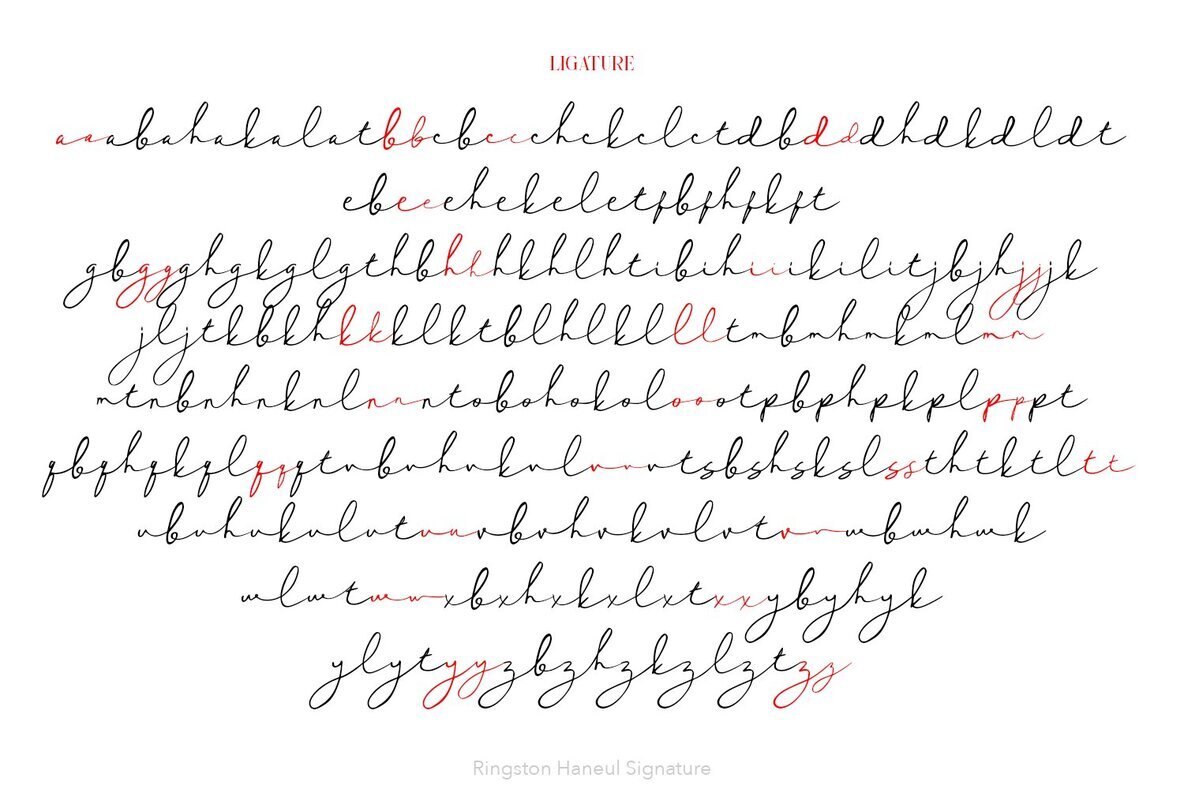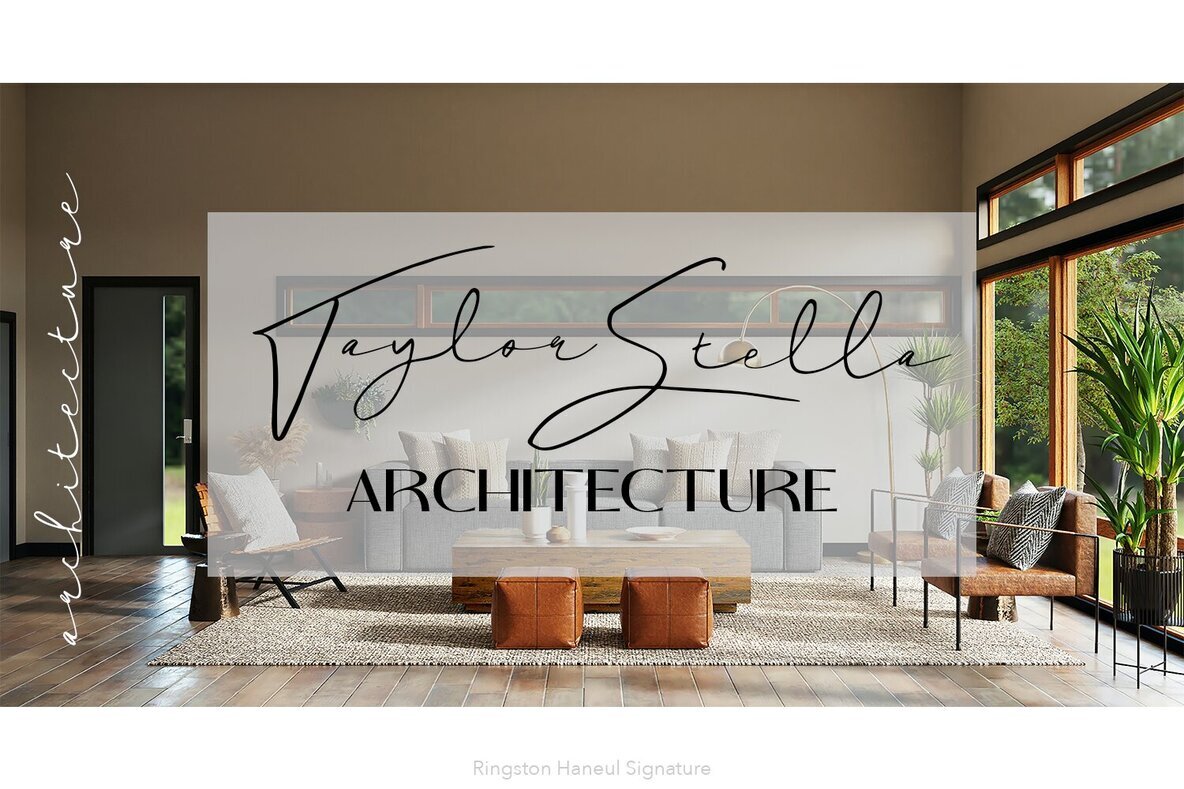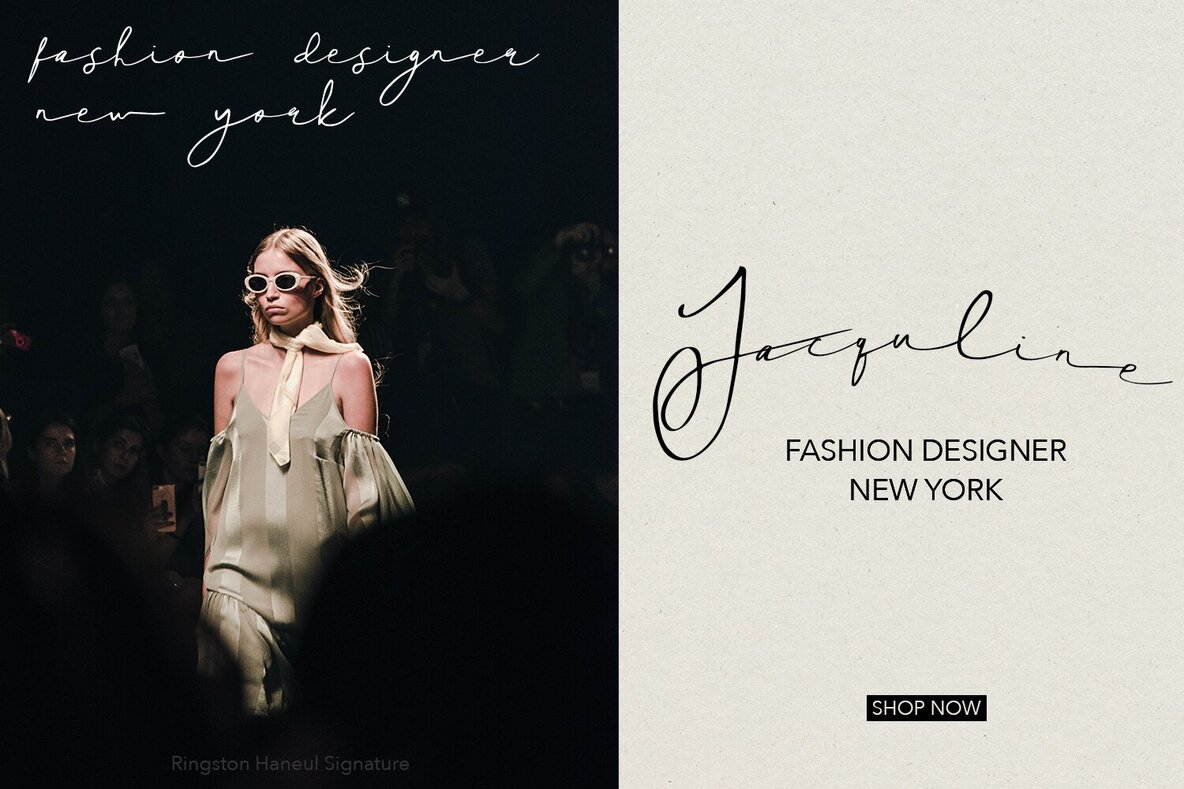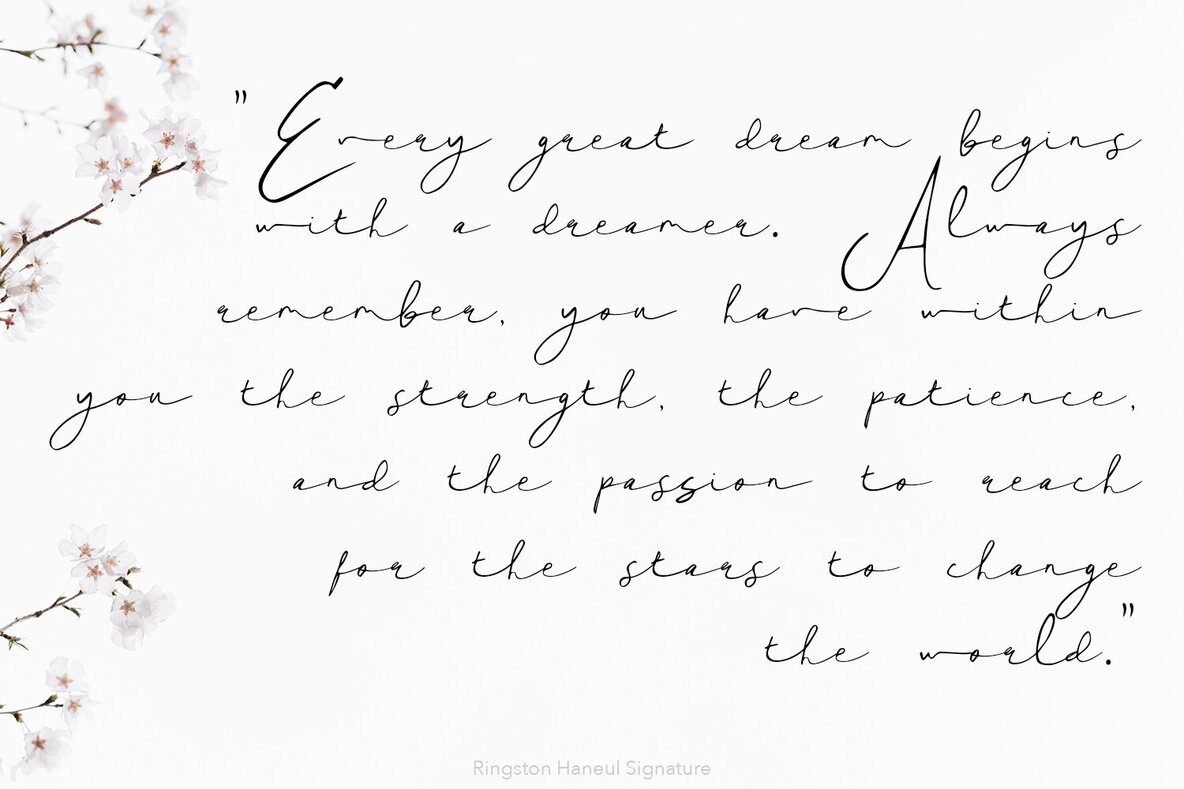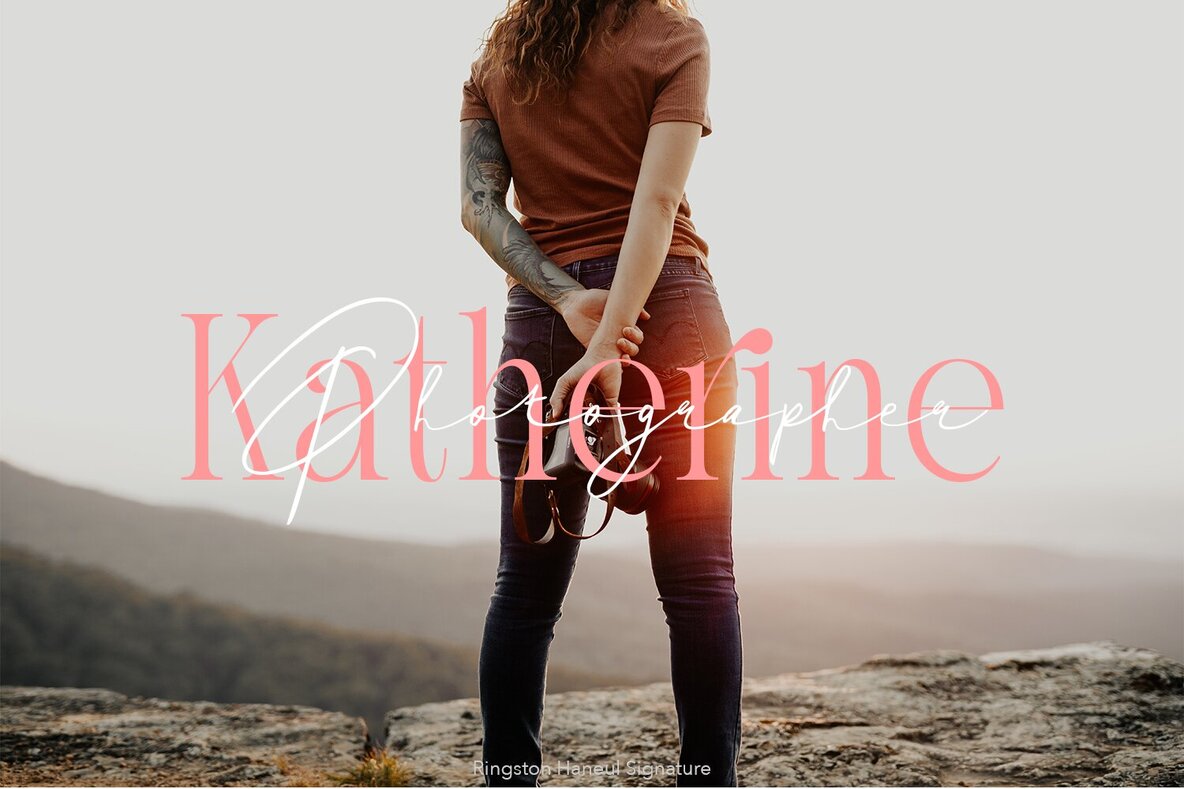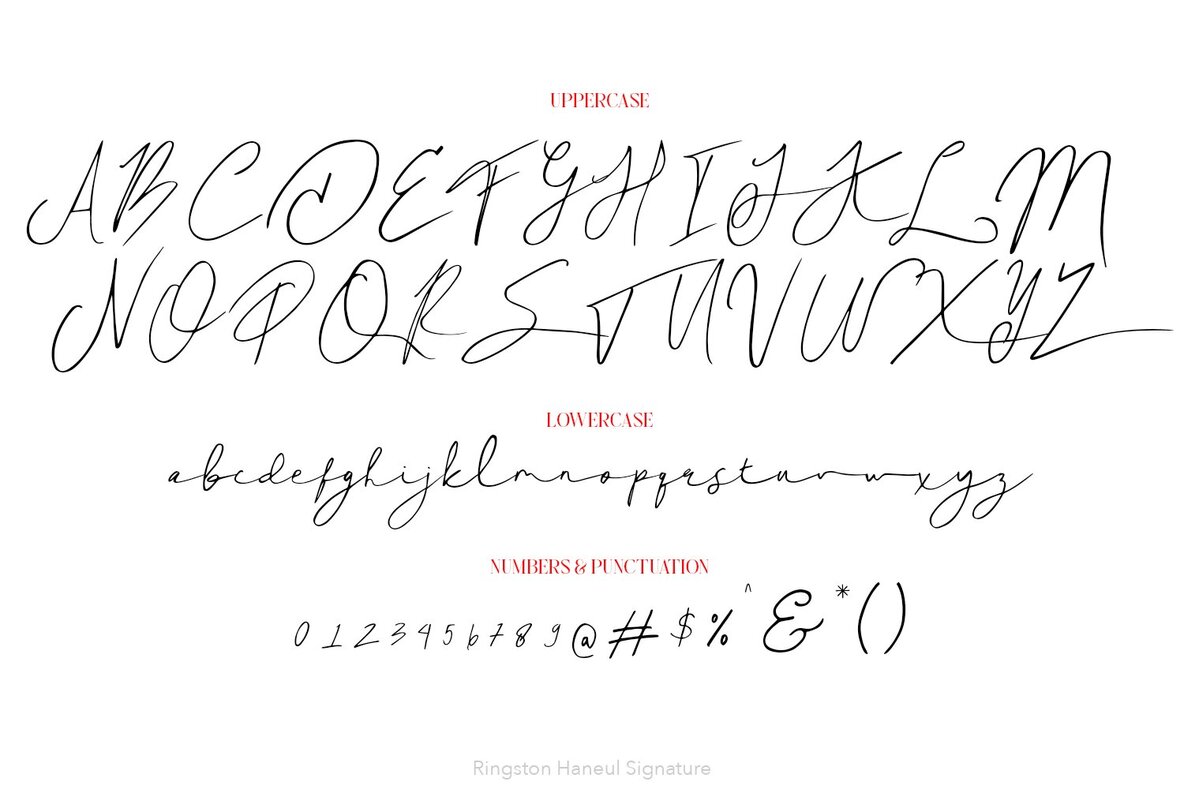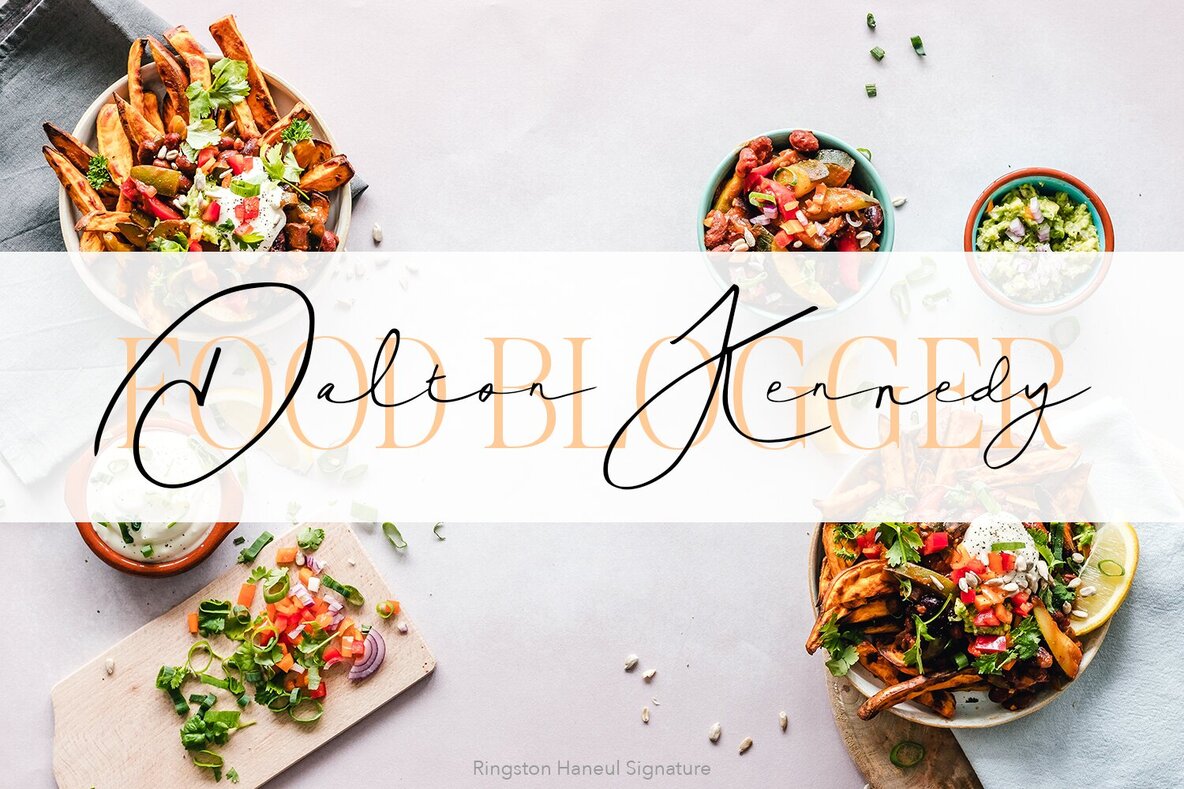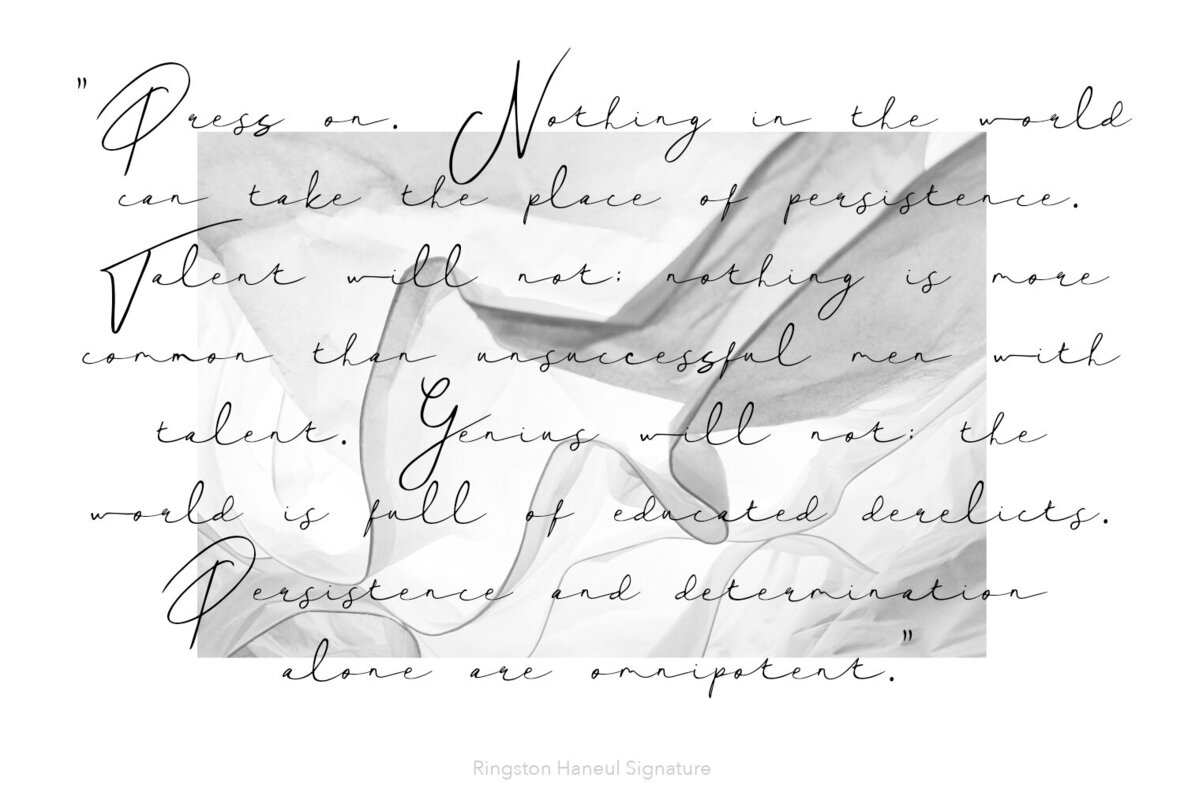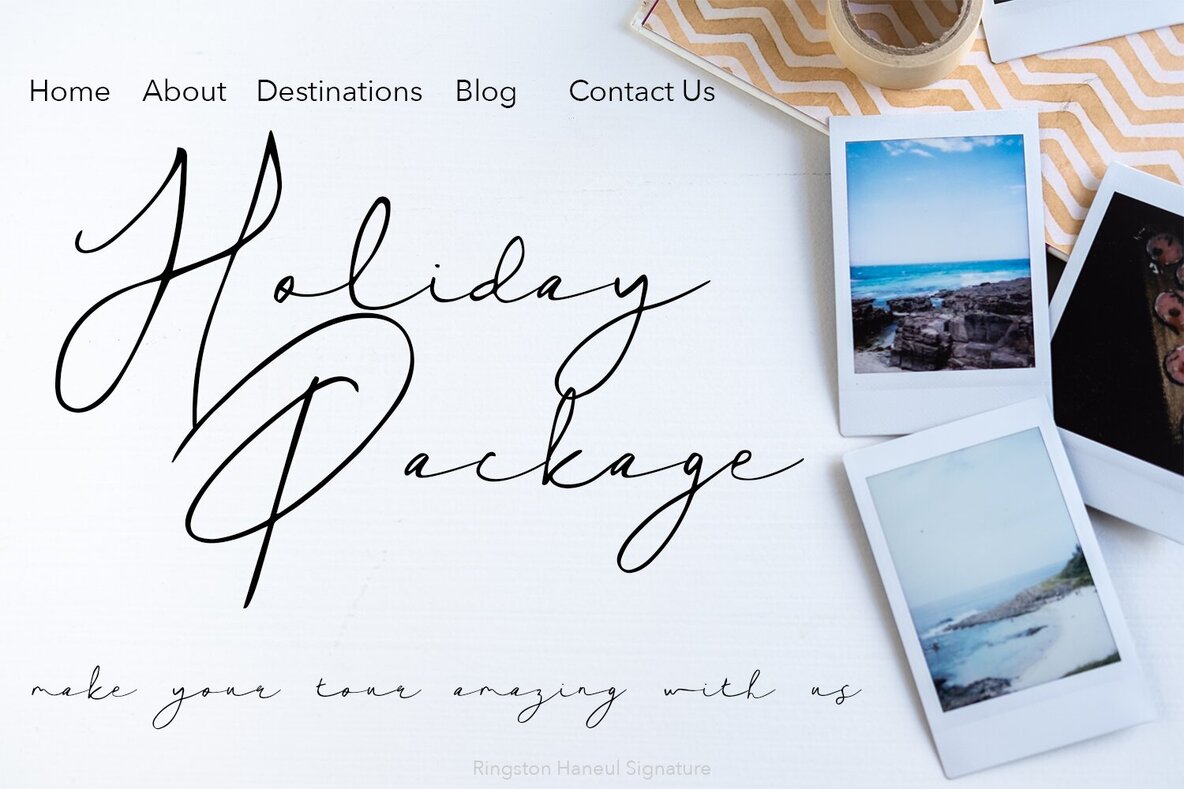
Ringston Haneul Font
Ringston Haneul
Ringston Haneul is a contemporary, stylish signature font designed to make a striking impact on all your design projects. Featuring over 124 ligatures, this font ensures a realistic handmade signature appearance, enhancing the authenticity and elegance of your designs.Ringston Haneul: A Sophisticated Signature Font